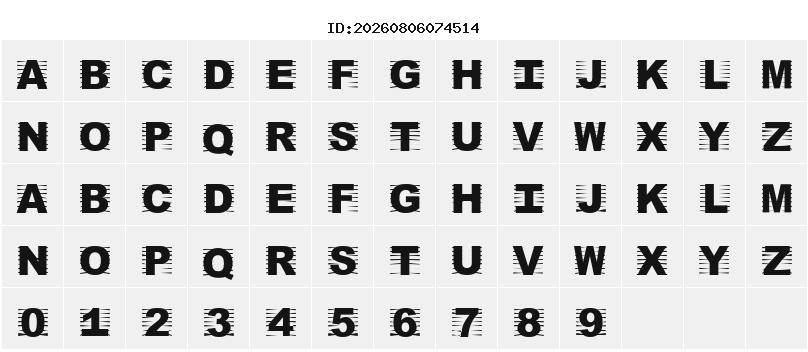
OszilloCapsFirst Preview
About OszilloCapsFirst.ttf
OszilloCapsFirst.ttf is a modern, elegant sans-serif font designed for ultimate readability and visual harmony. Perfect for branding, headlines, web design, and print materials.